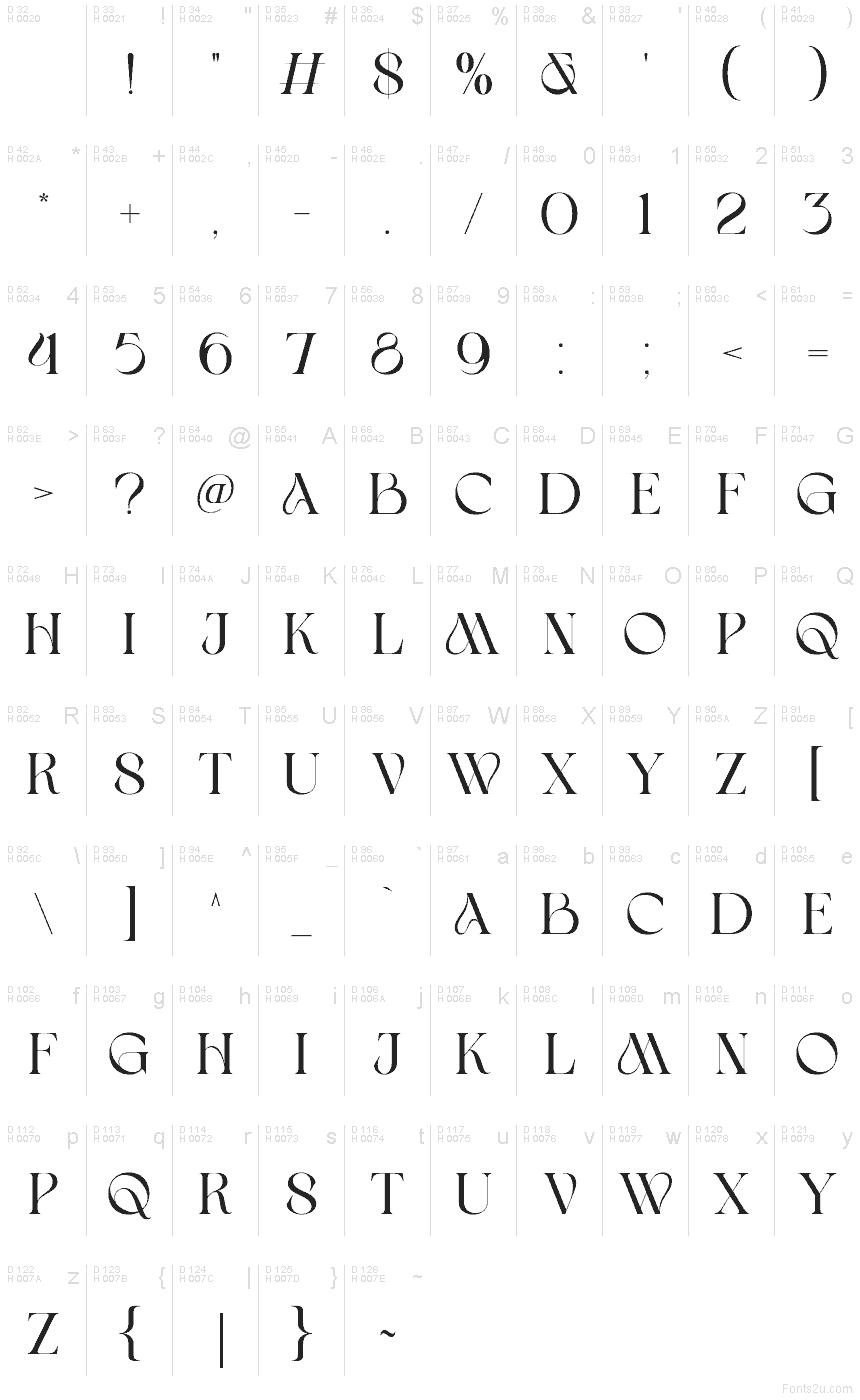
Lamoric Rowen
Lamoric Rowen font by HansCo is a free high-contrast vintage serif font. It stands out with sculpted teardrop bowls and razor-fine hairlines that flare into sharp, tailored serifs, giving headlines a luxe, Art Deco hush. The rhythm feels both carved and fluid—ink-trap-like cutaways, tall verticals, and elegant curves that catch light like polished metal.
Using Lamoric Rowen, logos and boutique branding gain instant poise, while wine labels, editorial headlines, event posters, packaging, and book covers read as upscale without feeling cold. This free font thrives oversized where its dramatic contrast can breathe; pair it with a quiet geometric sans for body copy, or track it slightly open to amplify its refined, poster-ready silhouette.